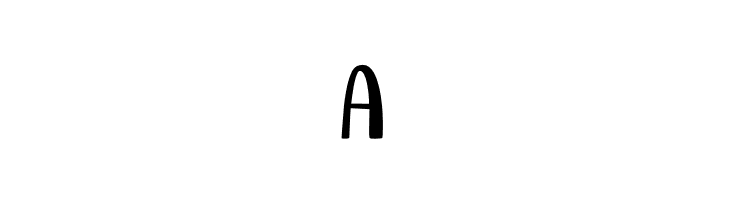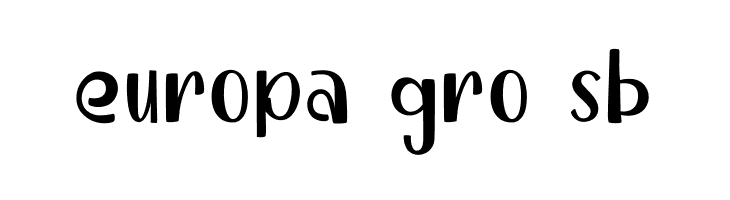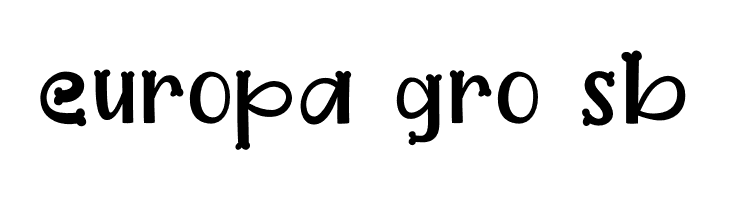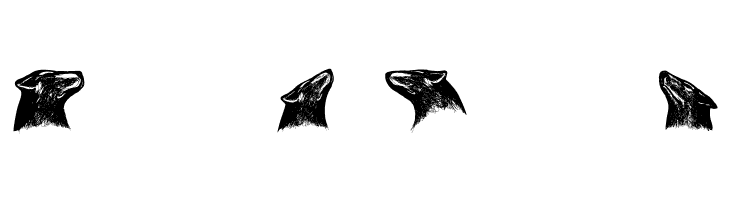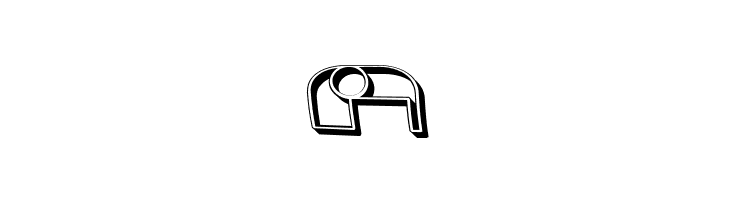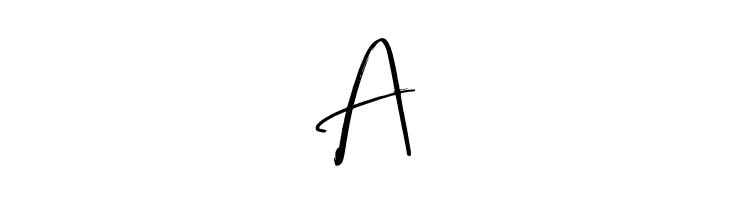
• Disembowel
A bold, distressed font with sharp, angular edges and a gothic-modern fusion style.
• Disney
( Fonts by Anwar )
A whimsical, playful font with a hand-drawn, animated style.
• Disorder Regular
A bold, geometric font with a futuristic, stencil-like design.
• Dissert
A playful, handwritten font with smooth, rounded edges and a casual style.
• DISTANCING
A bold, brushstroke-style font with dynamic and artistic flair.
• Distorted Regular
A playful, distorted font with a bold, three-dimensional look.
• Distortion
( Fonts by Motokiwo )
A bold, distorted font with a modern and edgy style.
• District
A bold, distressed font with a rugged, vintage appearance.
• Ditho
A lively, handwritten script font with smooth, flowing strokes.
• Dittanila Personal Use
A lively and expressive handwritten font with dynamic strokes.
• Divalia
A lively and elegant script font with fluid, cursive strokes.
• Divalia Italic
An elegant, cursive handwritten font with fluid, slanted lines.
• Diversity
A bold, expressive handwritten font with dynamic slanted strokes.
• Divine Regular
A bold, 3D geometric font with a dotted texture and strong visual impact.
• Djavaloca - DEMO Italic
A dynamic italic font with bold, angular letterforms and a modern aesthetic.
• Djavaloca - DEMO Regular